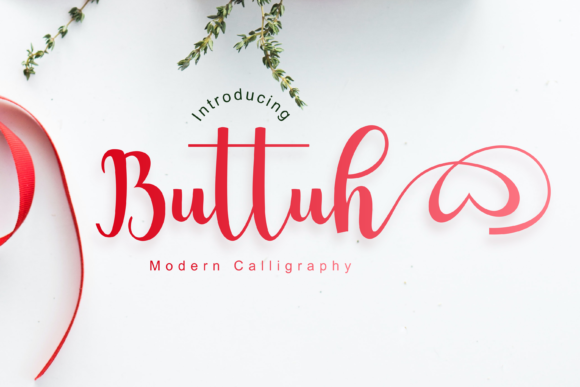
Unleash the Allure of Buttuh Font: A Masterpiece for Timeless Elegance
In the realm of typography, there exists a font that captivates hearts with its delicate charm and timeless elegance – Buttuh, a script font crafted by the masterful hands of Infontree. This exquisite creation is a symphony of flowing lines, smooth curves, and stunning alternates, making it the perfect choice for those seeking a touch of sophistication and artistry in their designs.
Buttuh's delicate strokes evoke a sense of romance, making it a perfect choice for wedding invitations and other special occasions. Its varying baseline adds a touch of whimsy and playfulness, while its gorgeous glyphs and stunning alternates provide endless possibilities for customization.
Immerse yourself in a world of elegance and grace as you explore the diverse applications of Buttuh. From heartfelt love letters to enchanting branding designs, this font adds a touch of refinement and beauty to every project it graces. Its versatility extends to social media posts, marketing materials, and even home décor, effortlessly elevating your creations with its timeless charm.
Escape the ordinary and embrace the extraordinary with Buttuh. Let your creativity flow freely as you craft designs that speak to the heart and leave a lasting impression. Discover the boundless potential of this remarkable font and embark on a journey of artistic expression like never before.